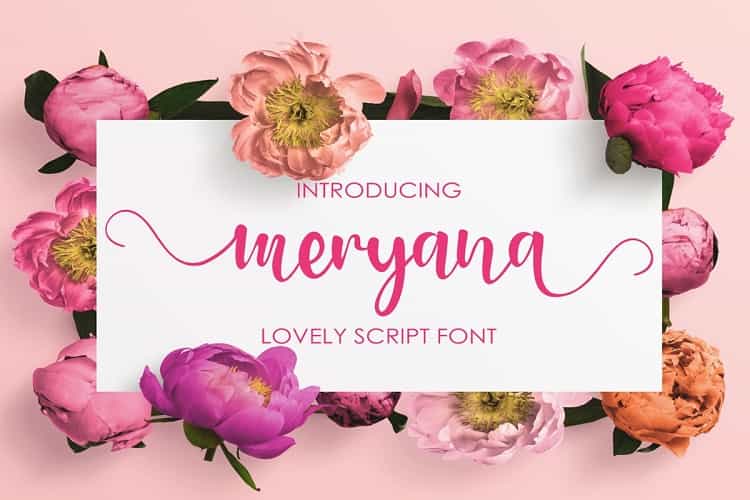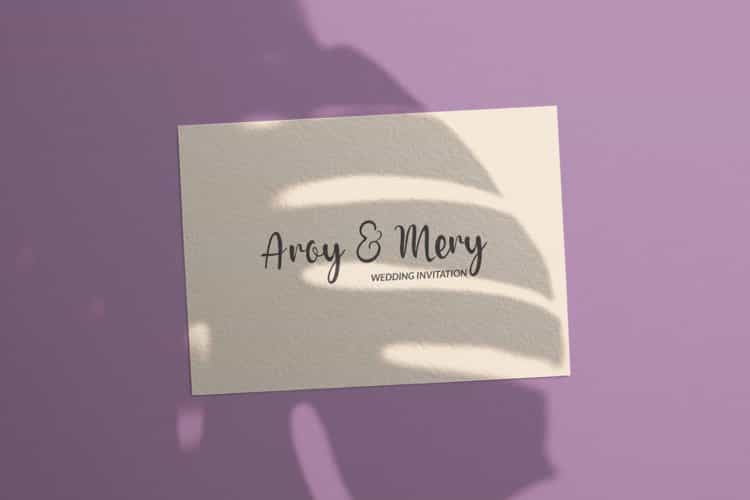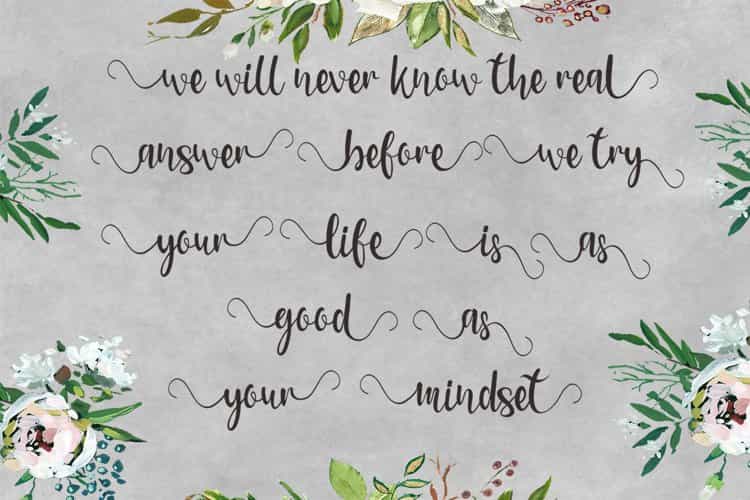
Meryana is a contemporary beautiful script font created using ink and brushes. It is able to elevate a wide variety of design projects to a higher quality, whether it’s branding and headings, wedding designs invitations, signatures, invitations labels, logos and more!